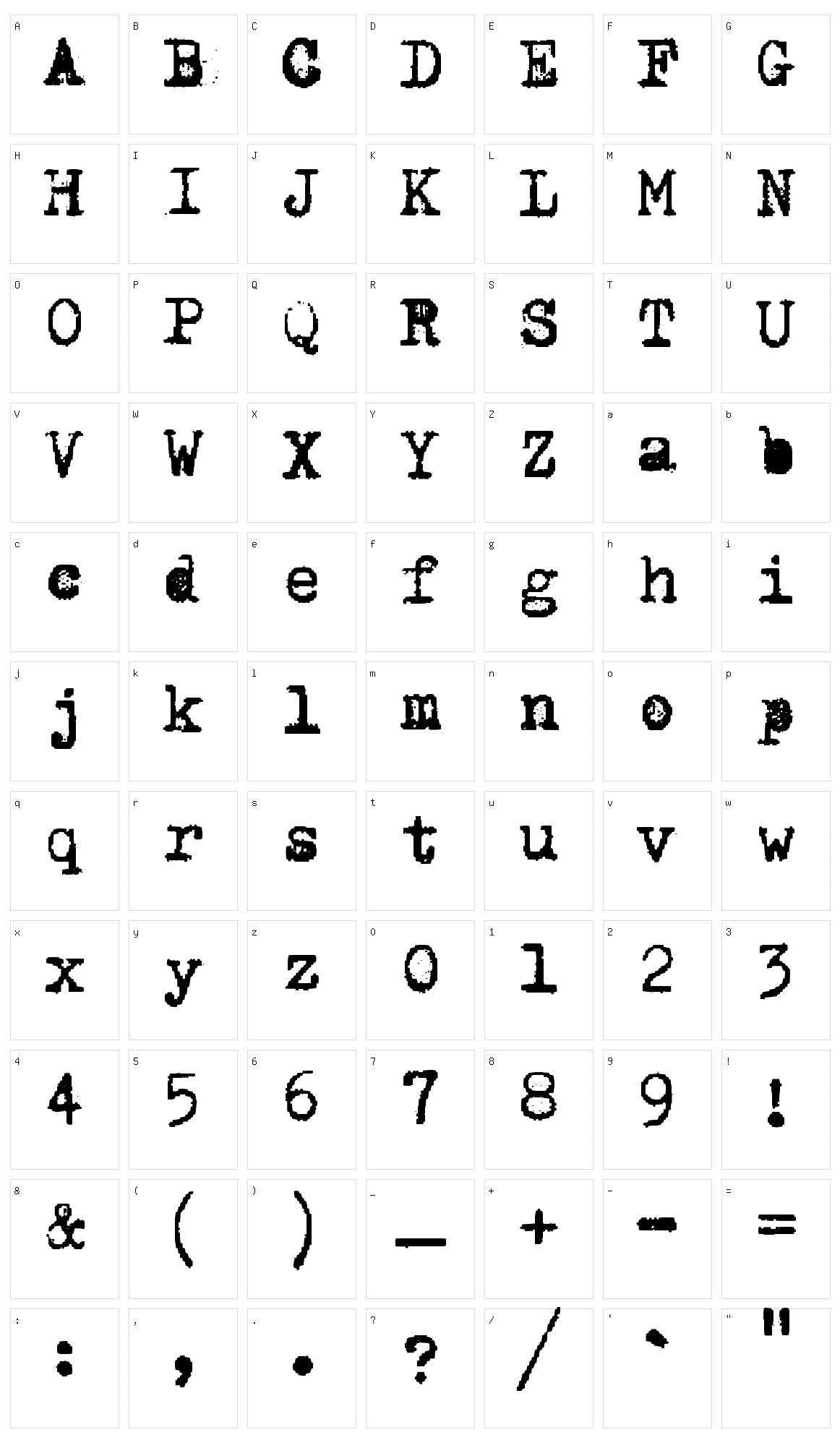
The free font Happy Days is carefully designed by Mr.Fisk Fonts, showcasing a thoughtful balance of creativity and usability and falls under the Typewriter font style. When you download the ZIP file, it contains only 42.3 KB of font files, making it lightweight and quick to download. Please review the license details below to understand permitted usage and distribution rights. If license information is not available, we recommend using this font for personal projects only or contacting the author directly for commercial usage permissions.
Happy Days font 2013 by Mr.Fisk Fonts